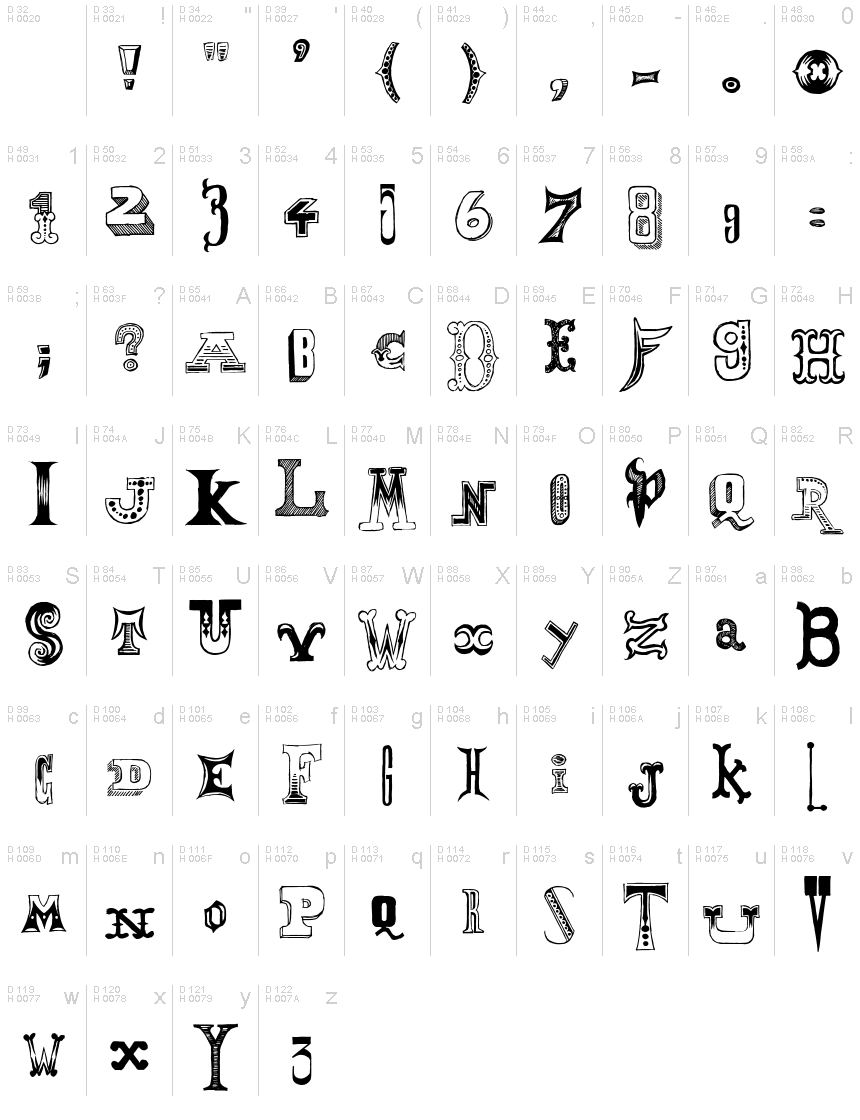
MoneyGoRound
MoneyGoRound is a delightfully whimsical display font that exudes a sense of playfulness and adventure. Designed by Imagex, this decorative typeface features intricate, intertwined letterforms that evoke the spirited energy of a carnival ride.
The bold, playful strokes and distinctive flourishes create a visually captivating effect, making it an ideal choice for eye-catching logo designs, poster headlines, and brand identities that aim to convey a sense of fun and excitement.
Suitable for a wide range of creative applications, from children's entertainment to retro-inspired branding, "MoneyGoRound" offers a unique typographic expression that is sure to capture the attention of audiences.